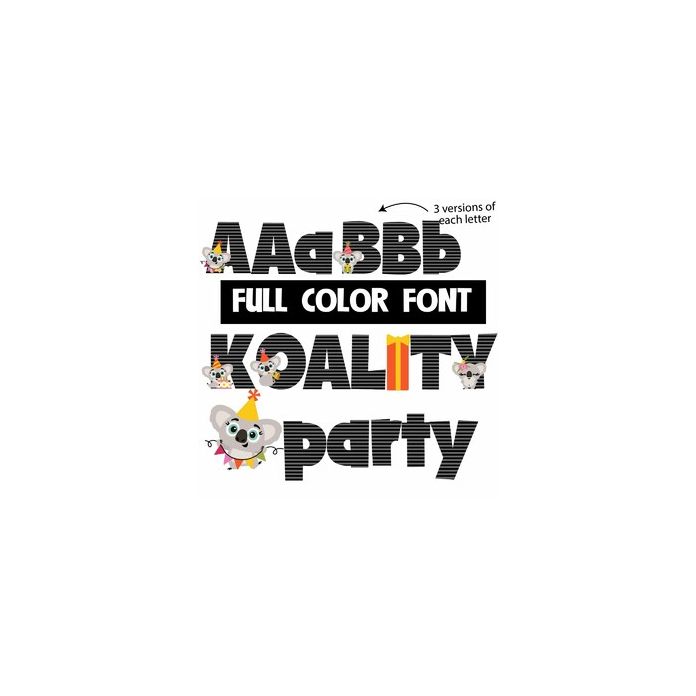
This full-color font features celebratory pandas on the uppercase. The lowercase is without. A true lowercase is accessible with the Silhouette Studio glyph map.